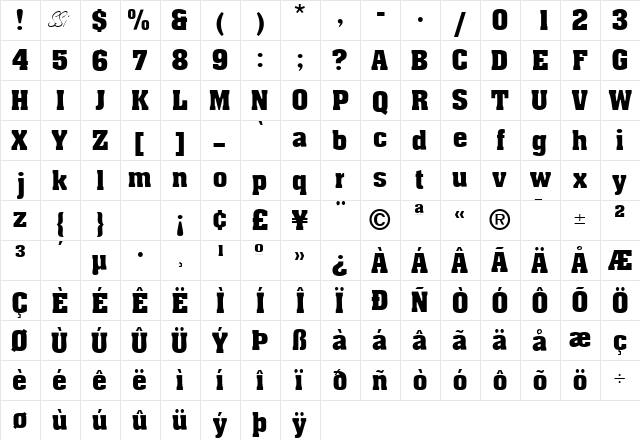
BlocSSK Regular
Design Context for BlocSSK Typeface
BlocSSK takes a measured approach to typography — its balanced proportions and neutral character make it a reliable workhorse for both digital and print work.